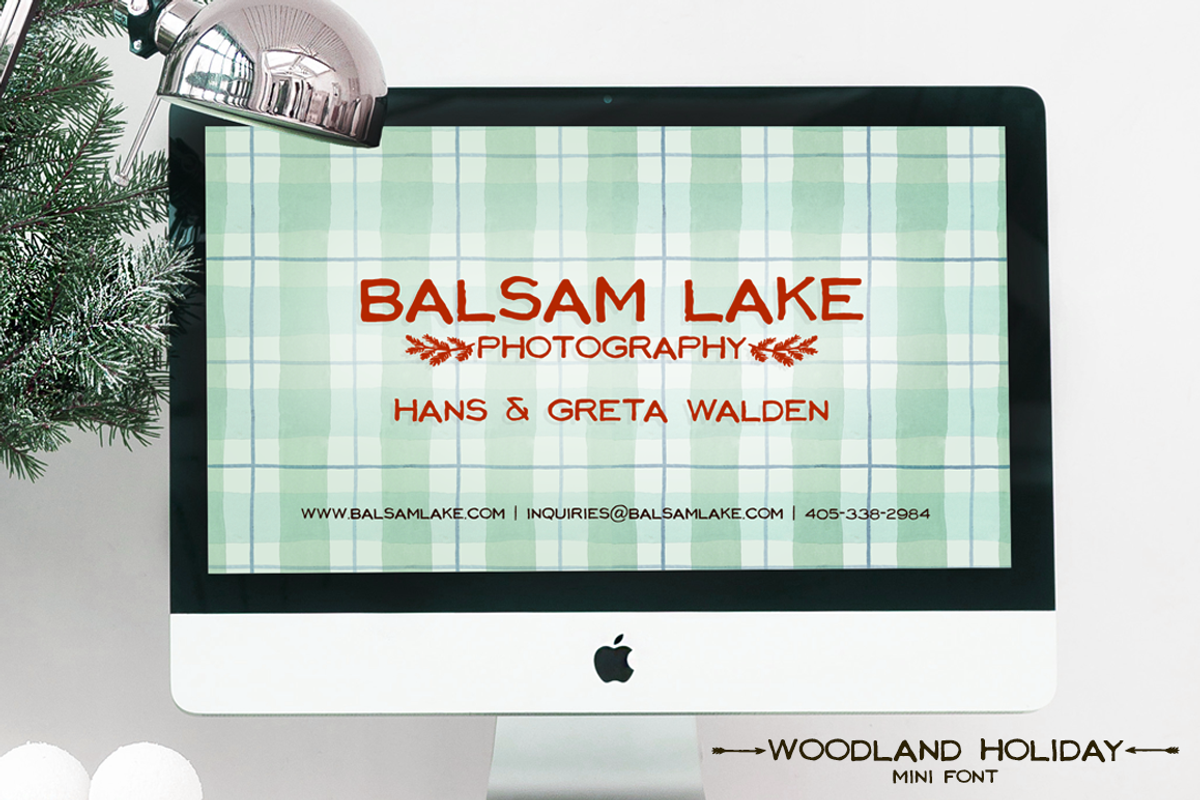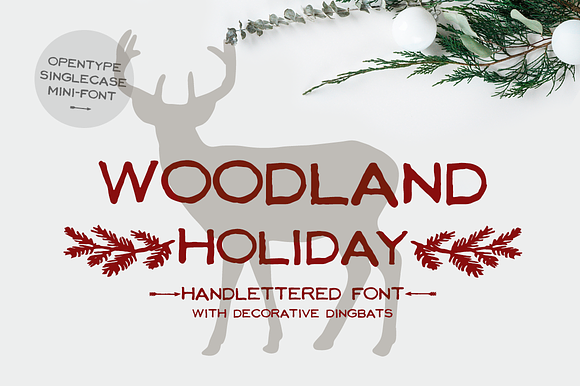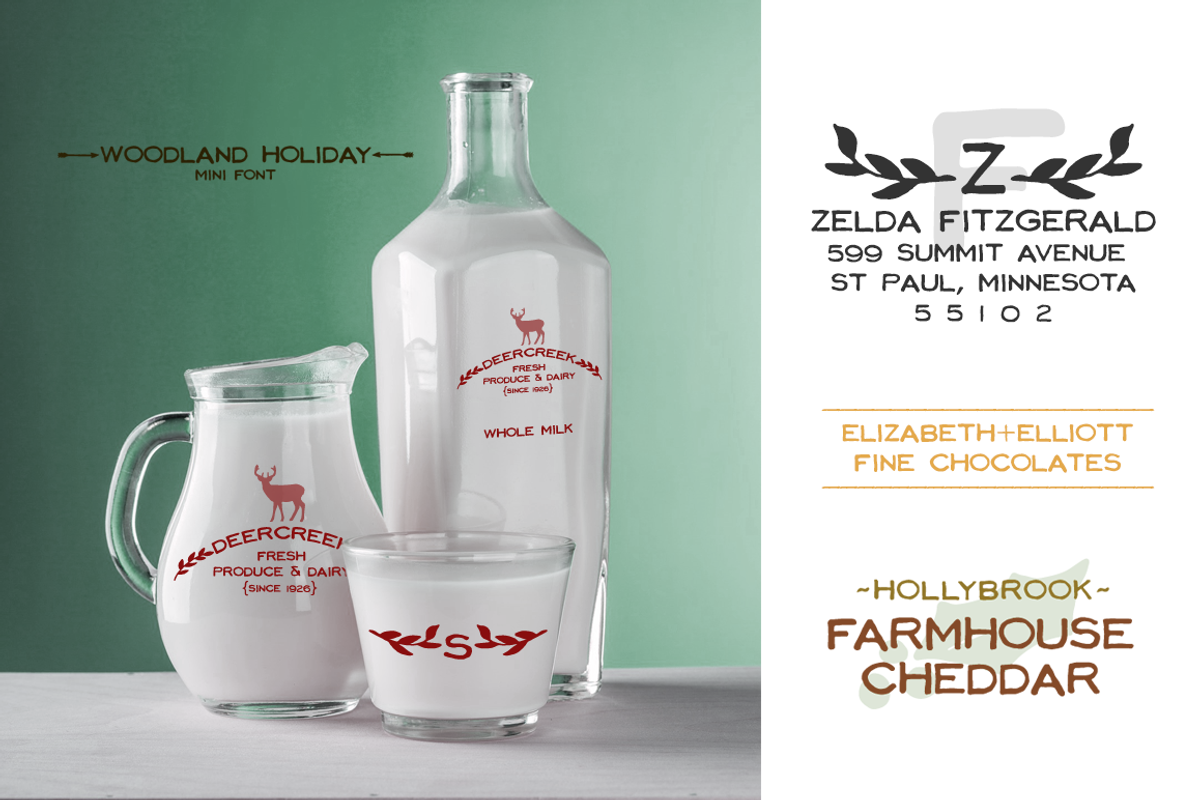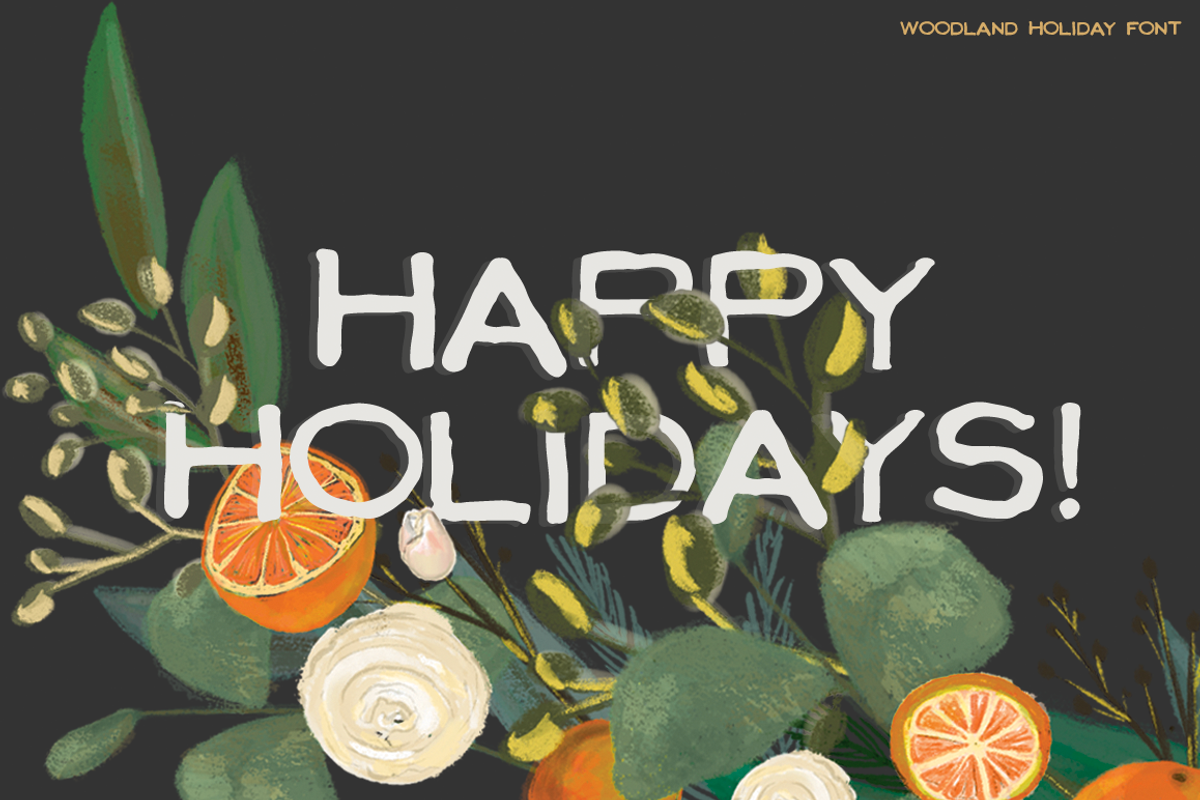
Woodland Holiday Font
Woodland Holiday is a handsome little handcrafted font with dingbats. Perfect for your farmhouse decor, rustic signage, vintage inspired branding and giftware.
Monocase font (ALL uppercase glyphs A-Z)